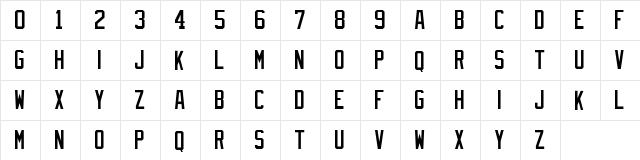
NHL Vancouver Regular Font Preview
NHL Vancouver Regular
Design Context for NHL Vancouver Typeface
NHL Vancouver is a composed and adaptable typeface that performs quietly and consistently across a wide range of design contexts.